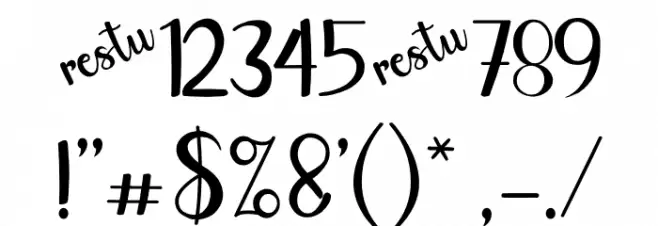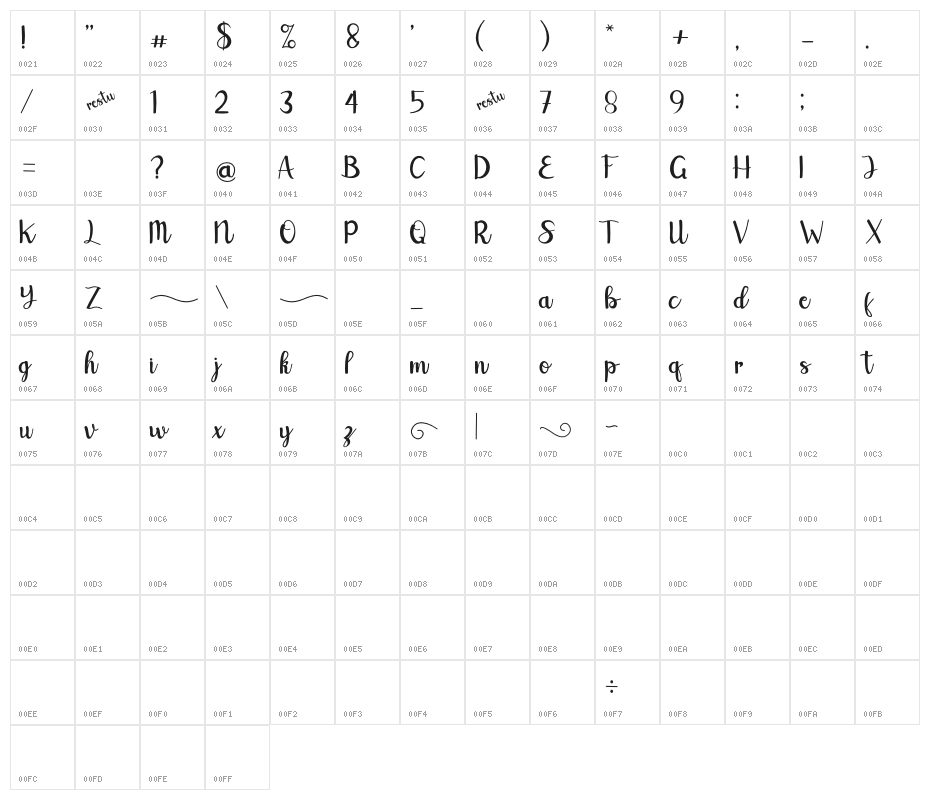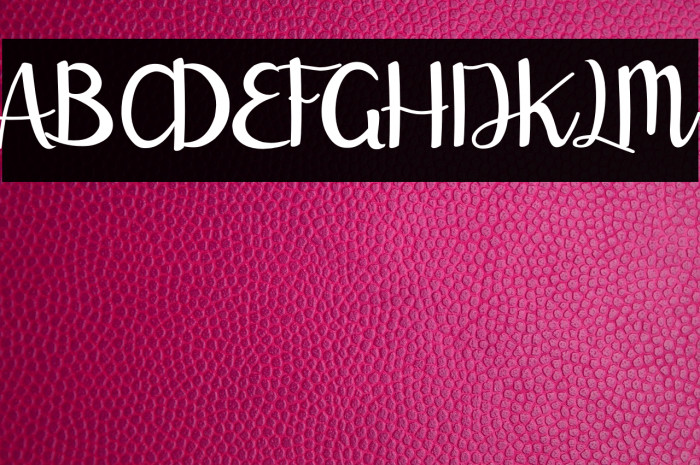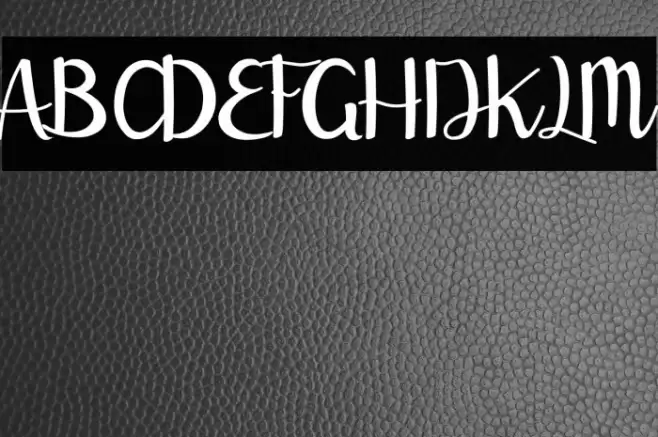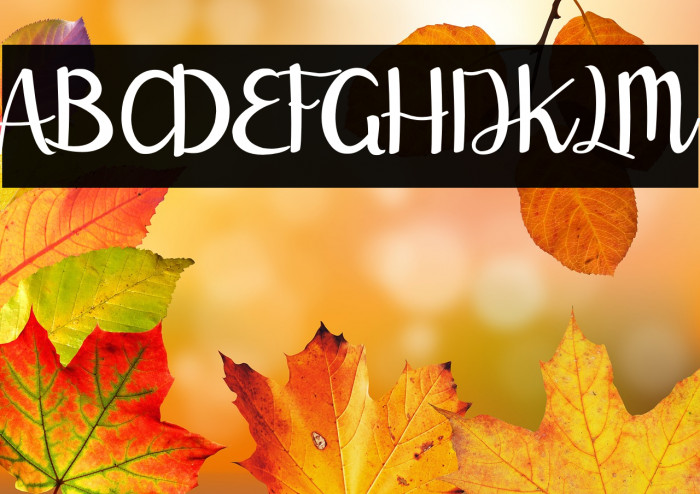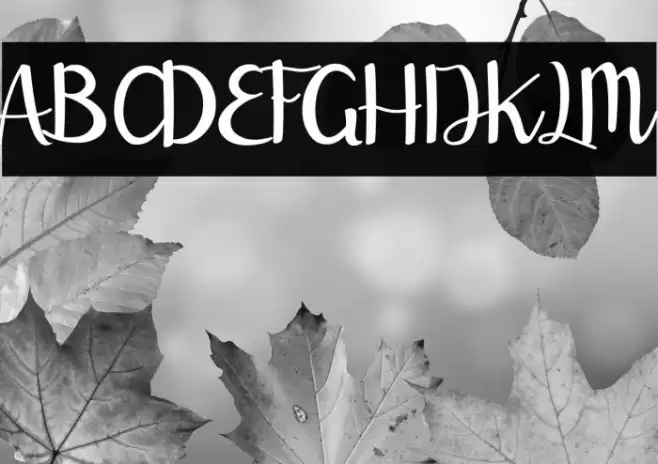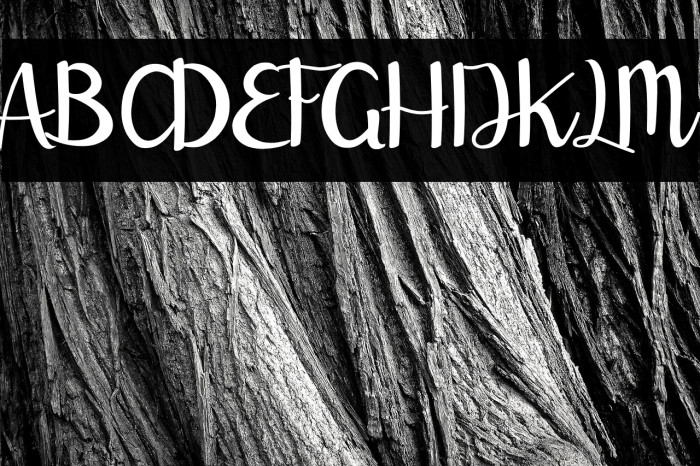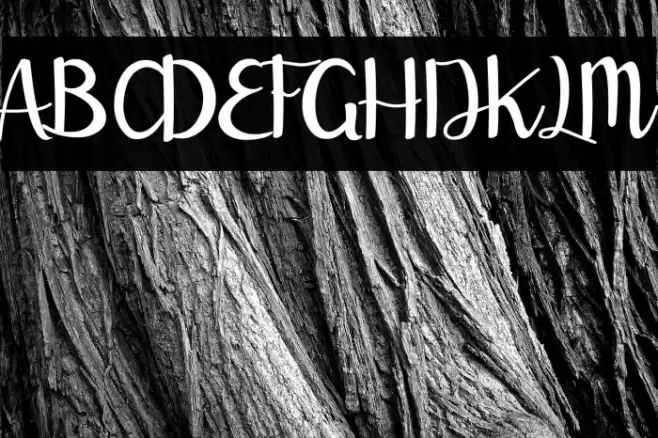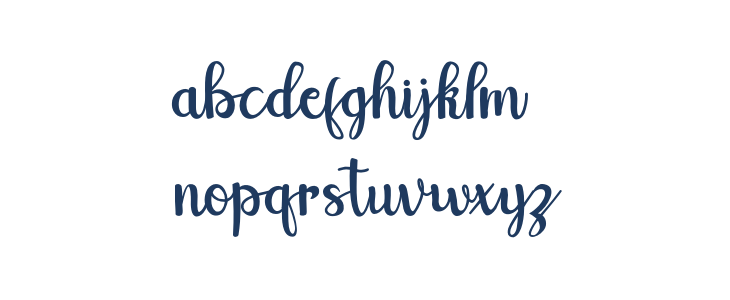
restu Font
restu Description
This font features a playful and whimsical style with a handwritten appearance. The uppercase letters have a bold, flowing design with varying stroke widths, giving them a dynamic and lively feel. The lowercase letters maintain a consistent style, with some characters having unique loops and curves that add to the font's charm. Numbers are bold and slightly rounded, complementing the overall aesthetic. Special characters are creatively designed, maintaining the playful theme. This font is ideal for projects that require a fun and informal touch.